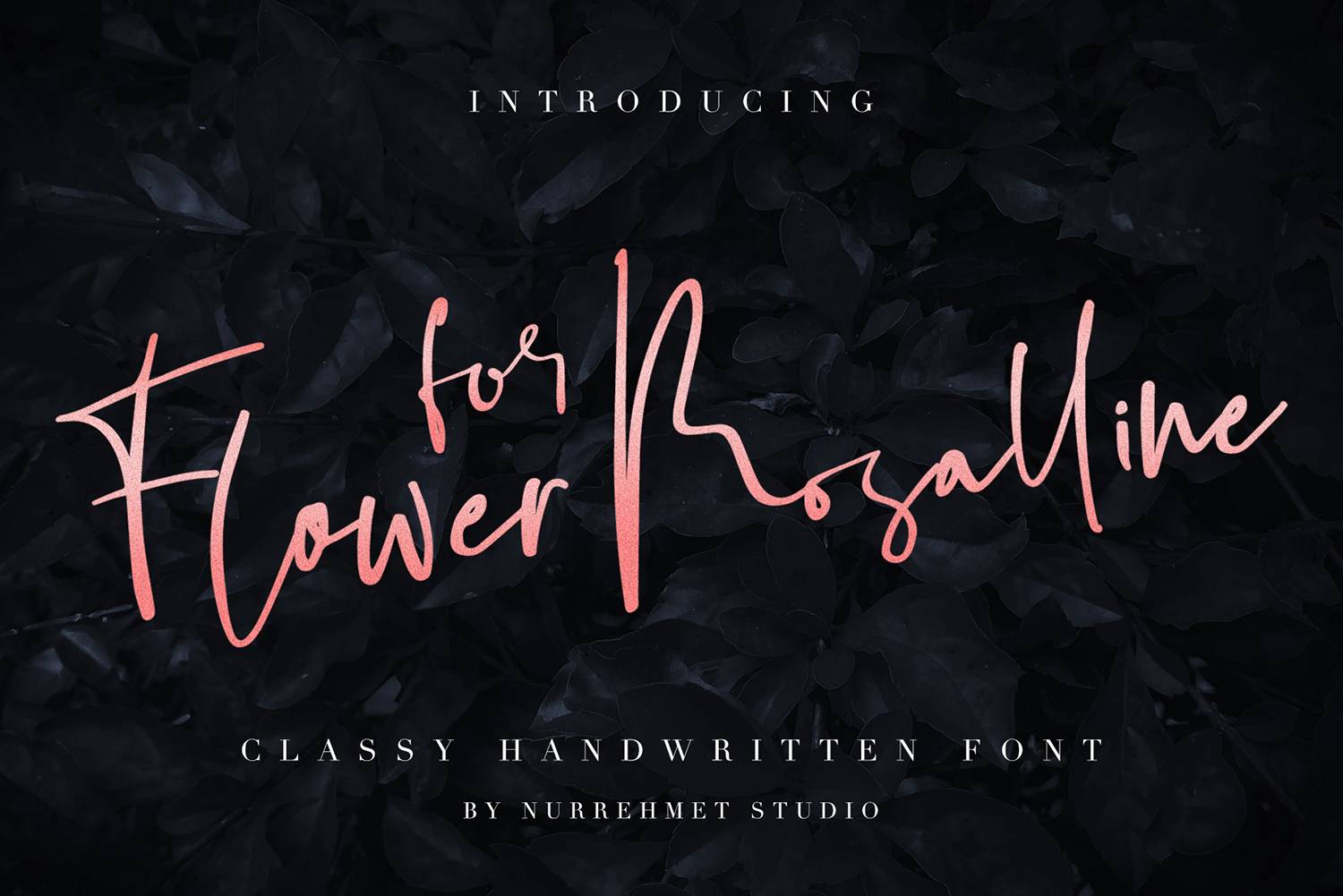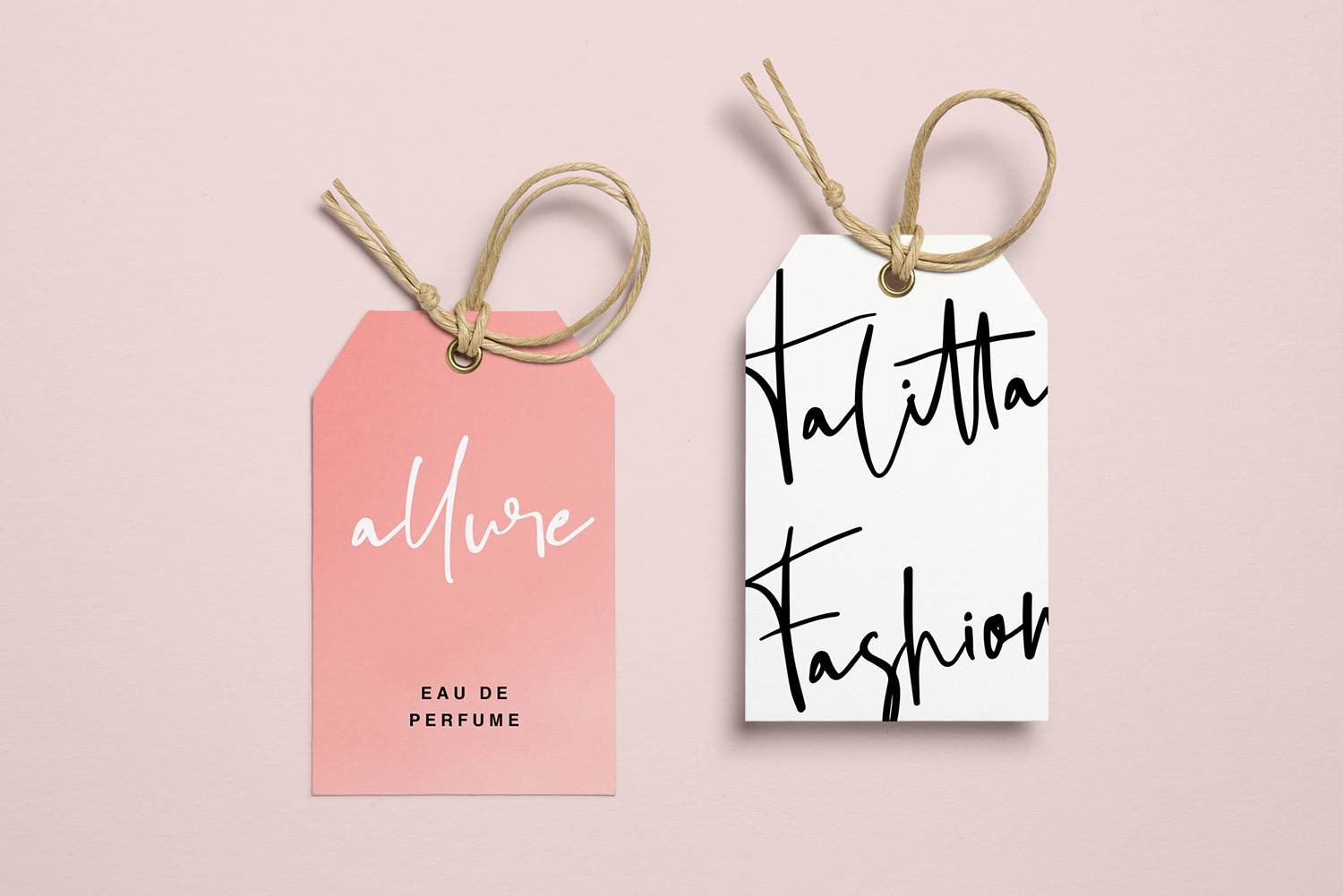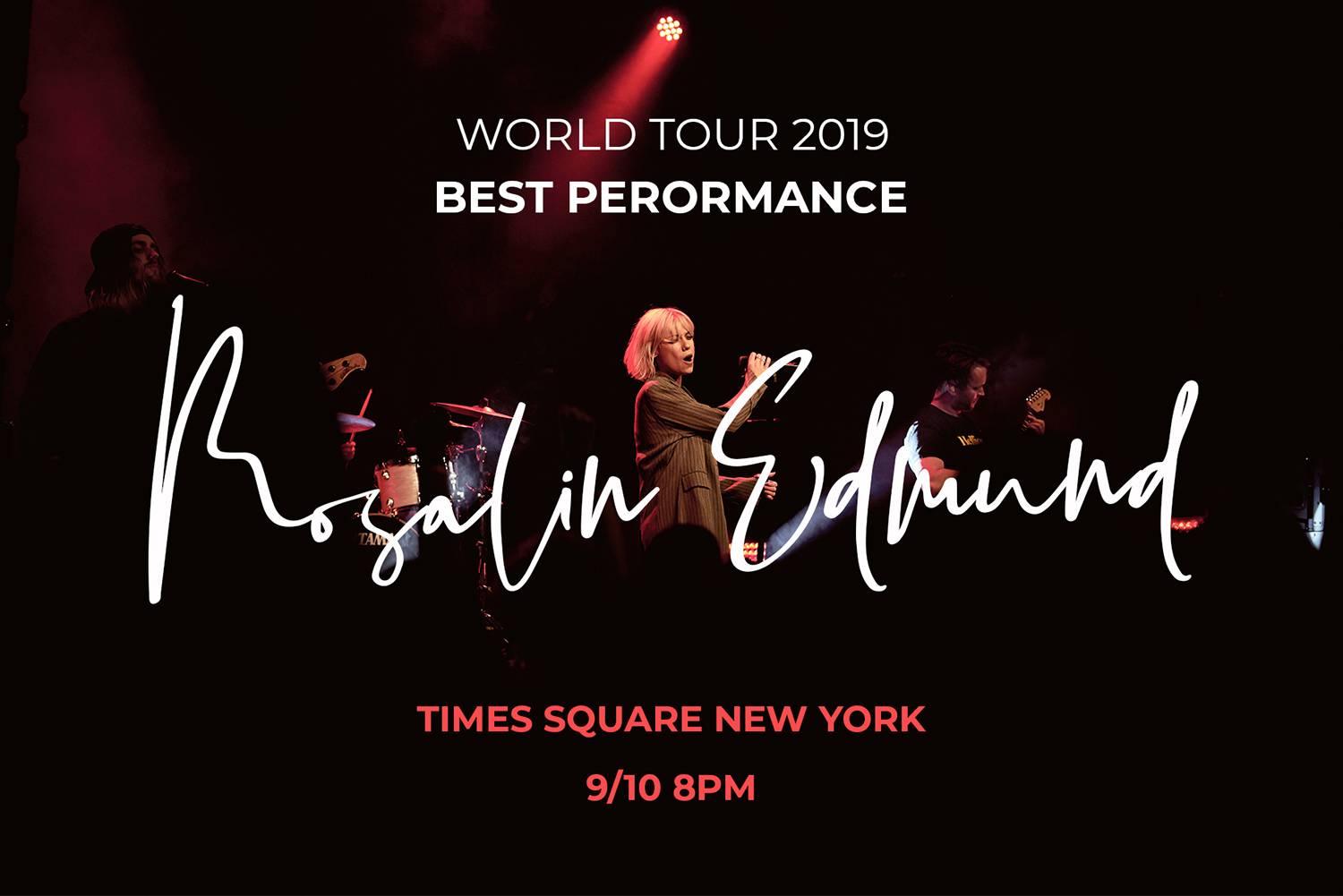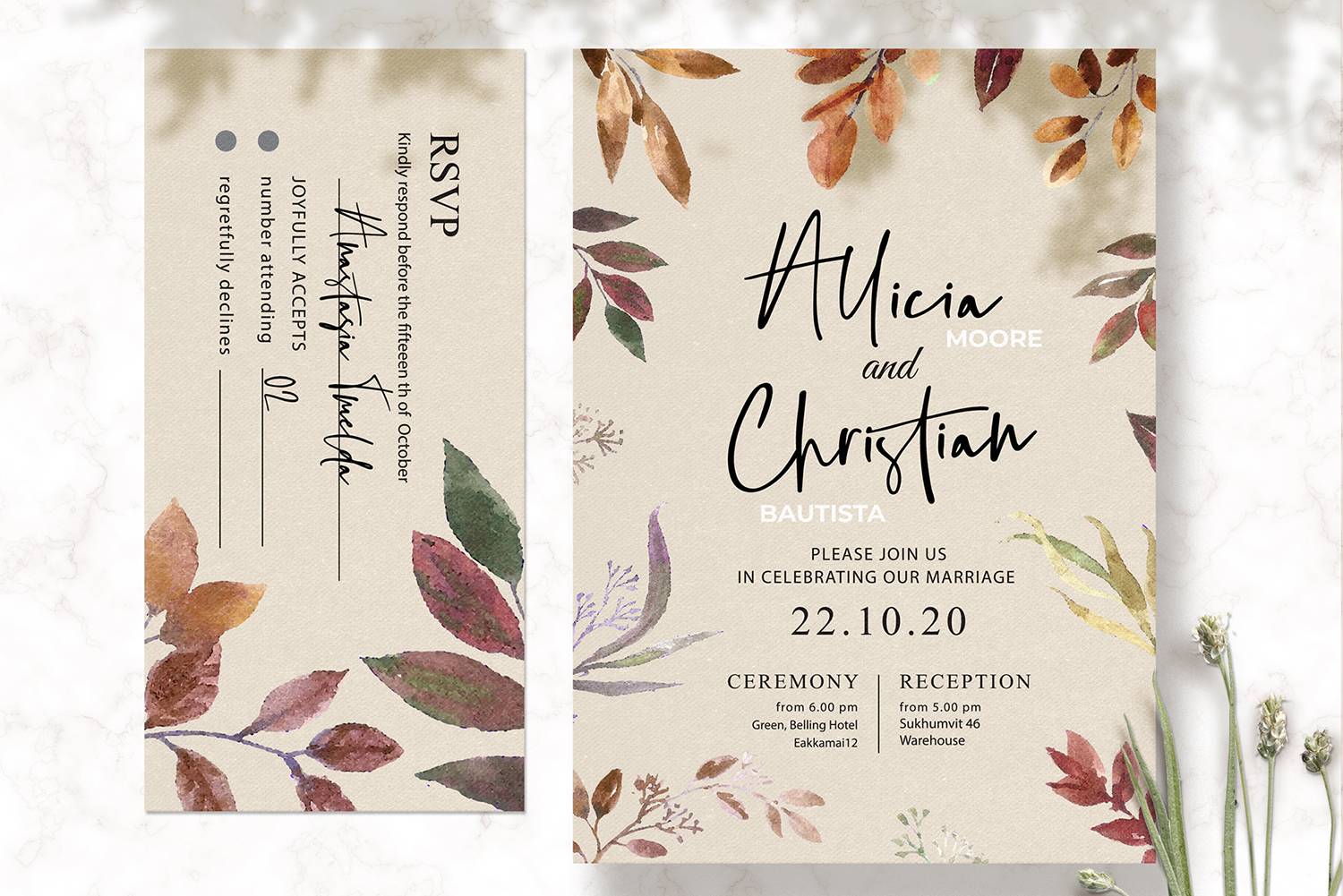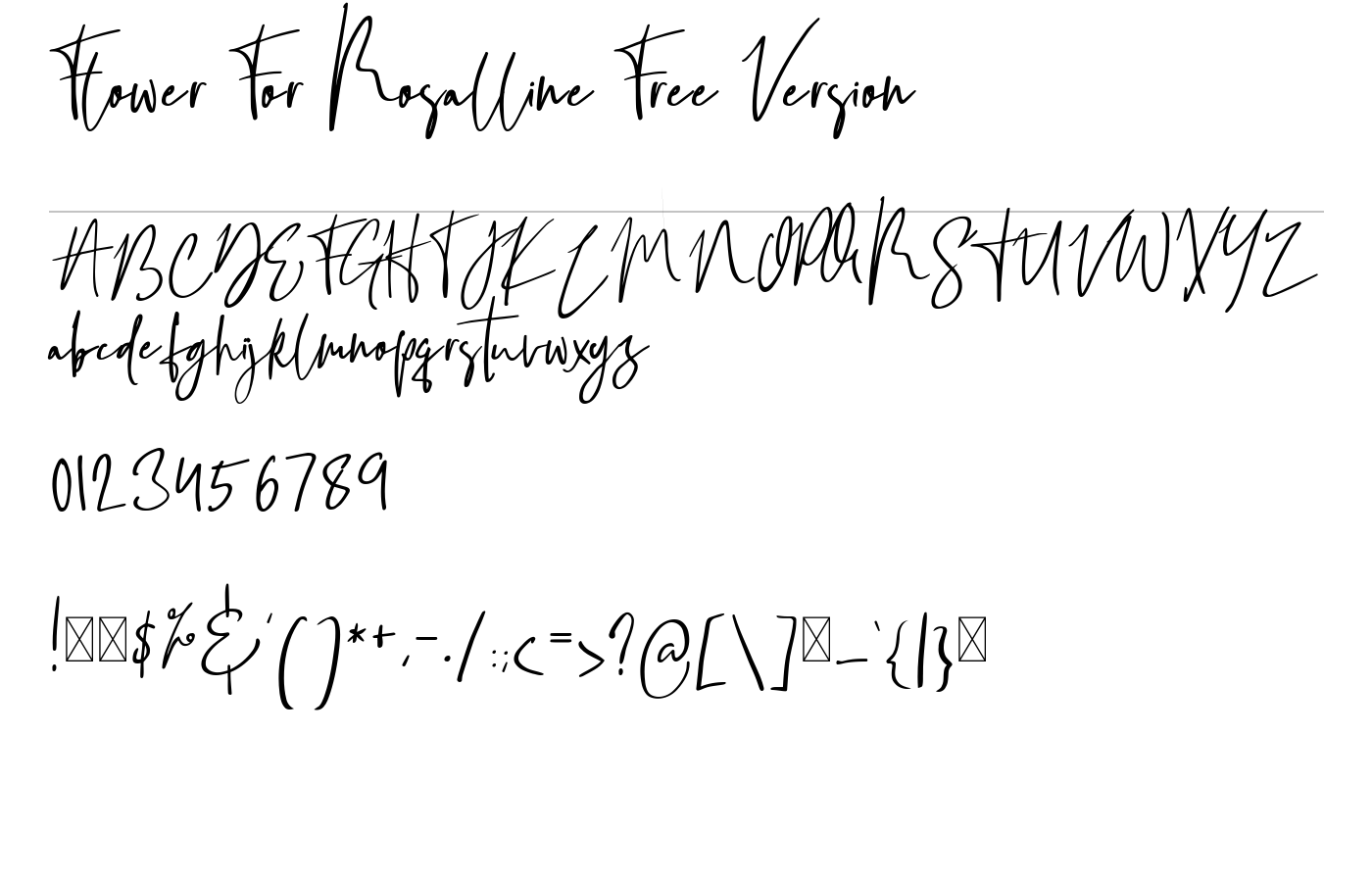
Flower For Rosalline is a delicate, handwritten script font featuring tall, slender letterforms with a casual, slightly messy style that adds personality and charm. Its uneven strokes and organic flow make it perfect for creative projects that need a personal touch, such as invitations, branding, and artistic headlines. This font communicates a friendly, approachable vibe while maintaining elegance through its fine, airy lines.
Flower For Rosalline Font
About Flower For Rosalline Font
| Font family | Flower For Rosalline Font |
| Designer | Imam Nurrahmat |